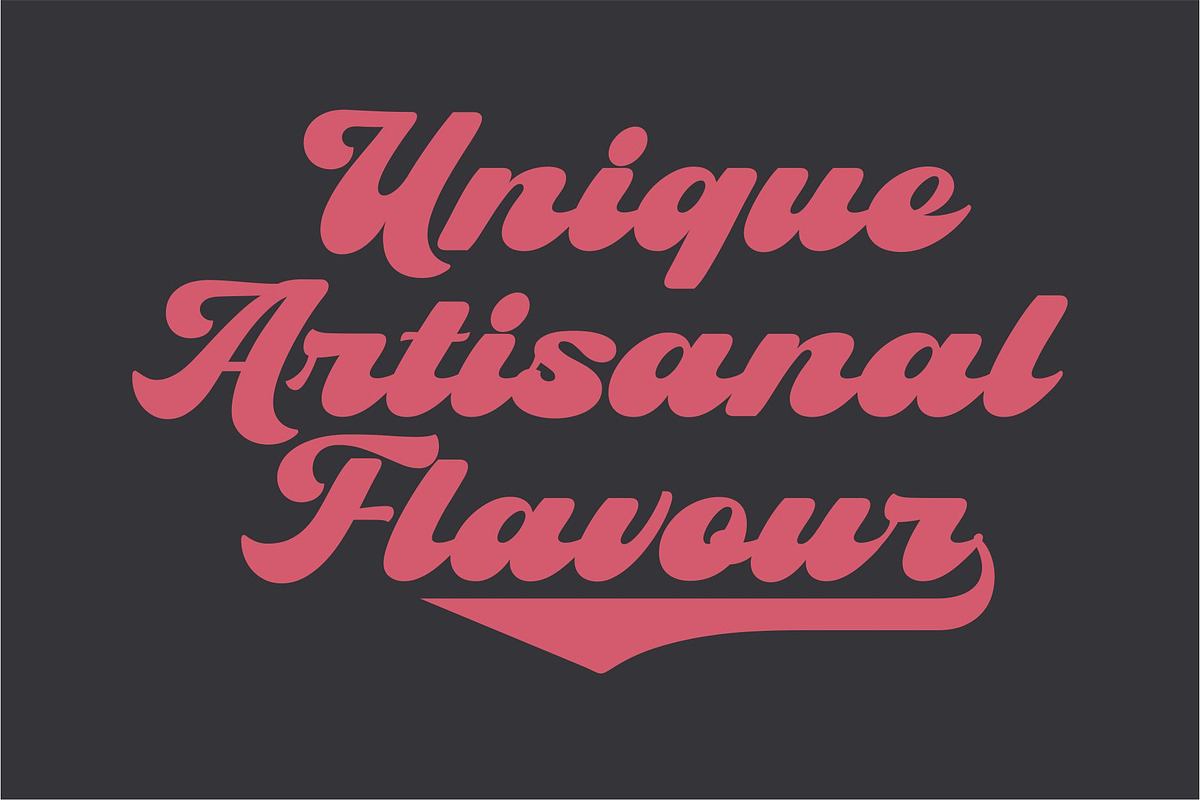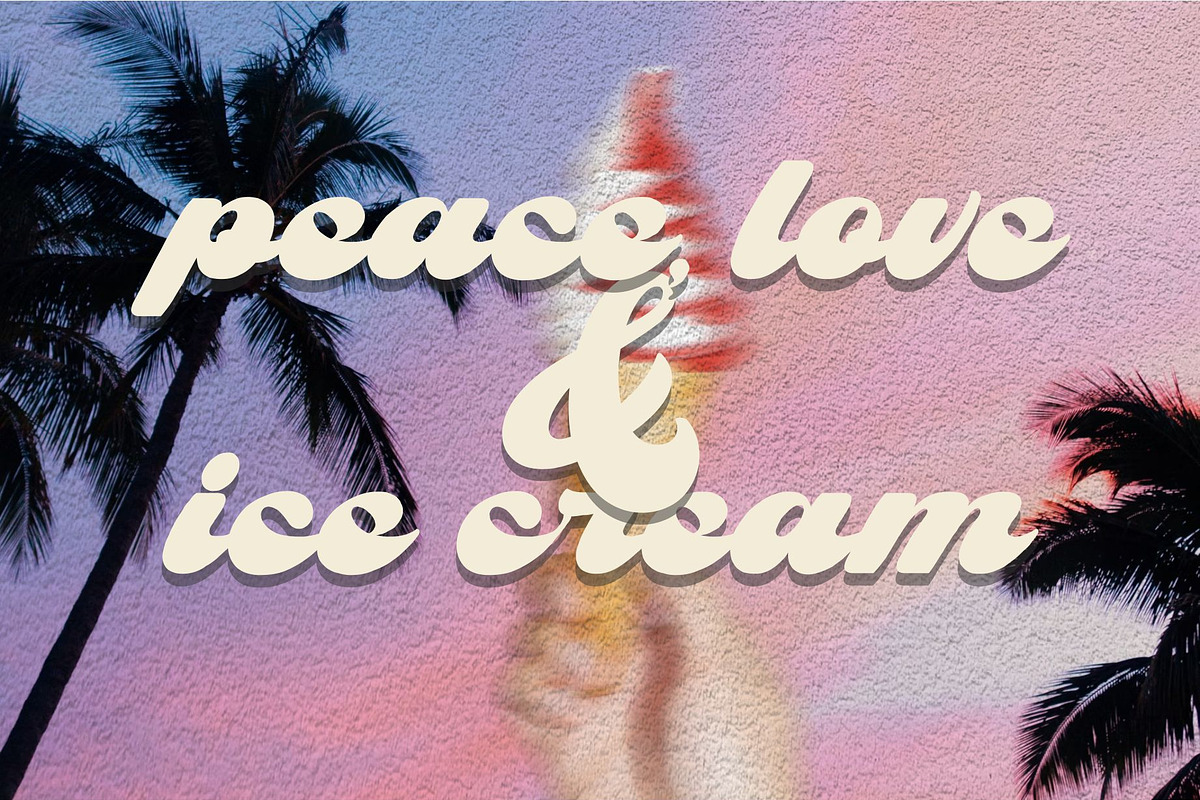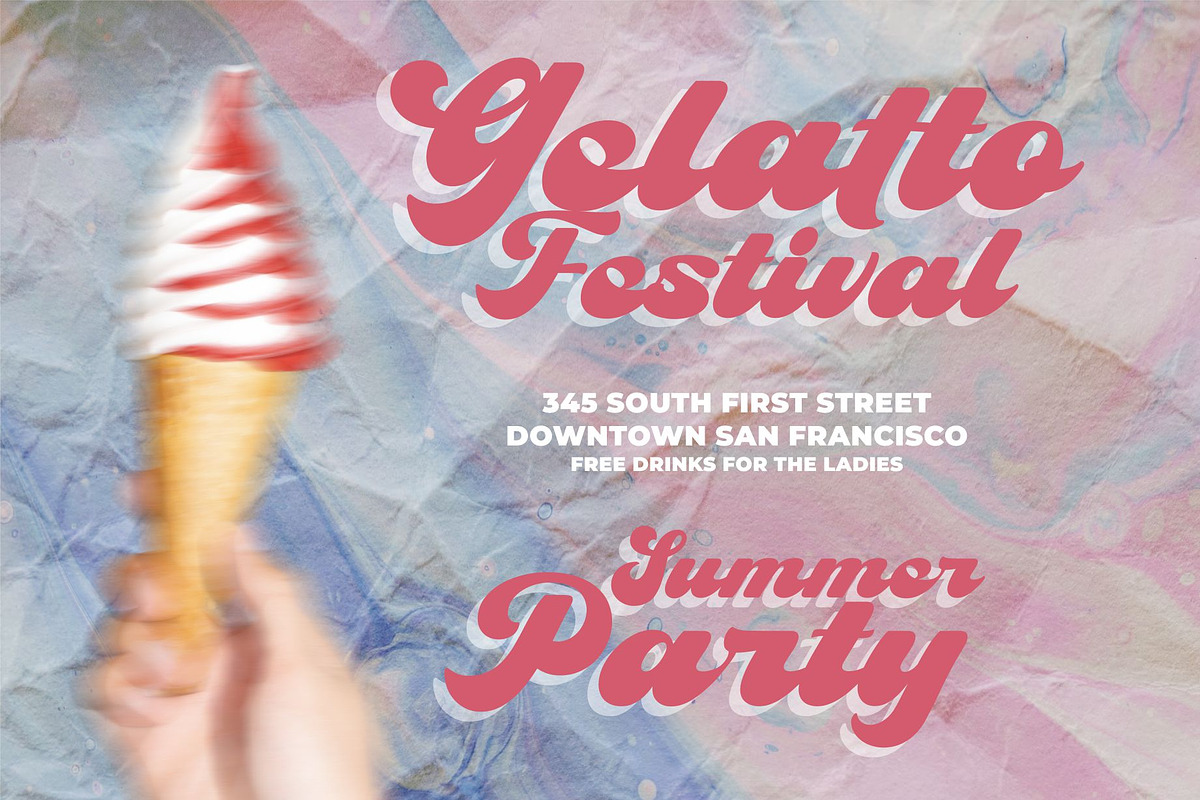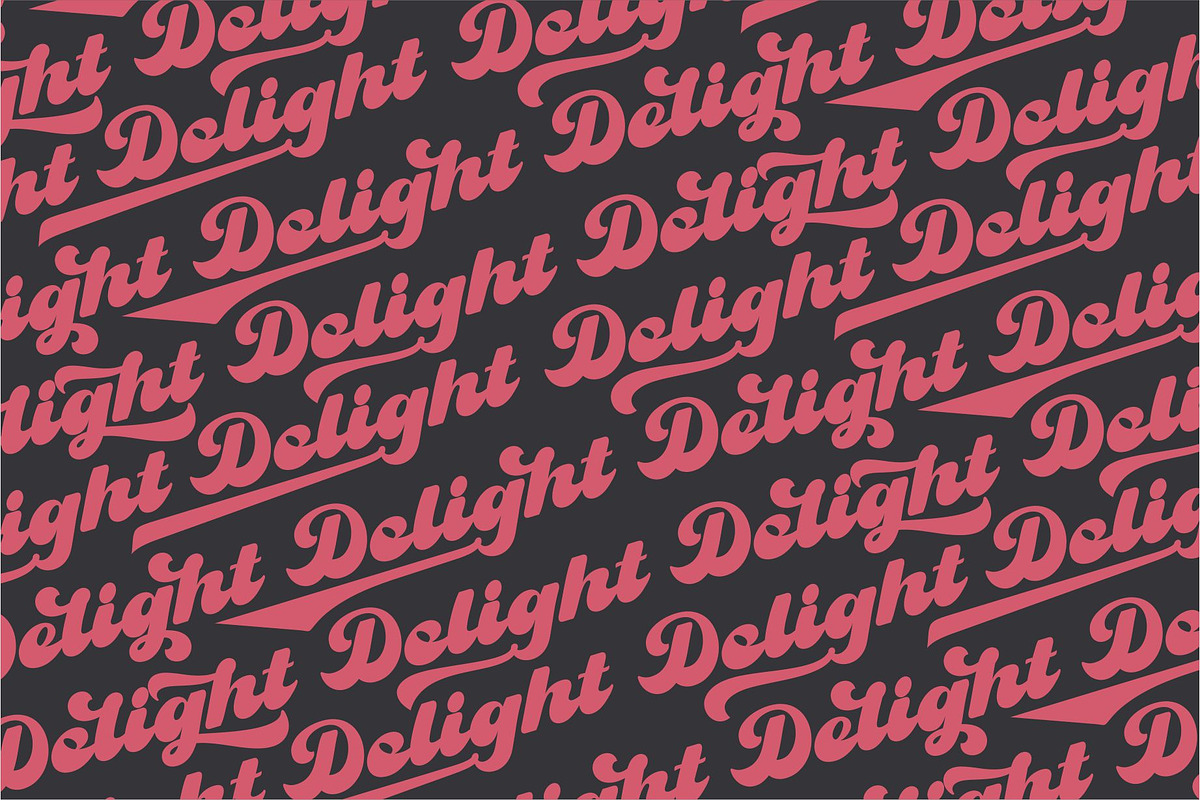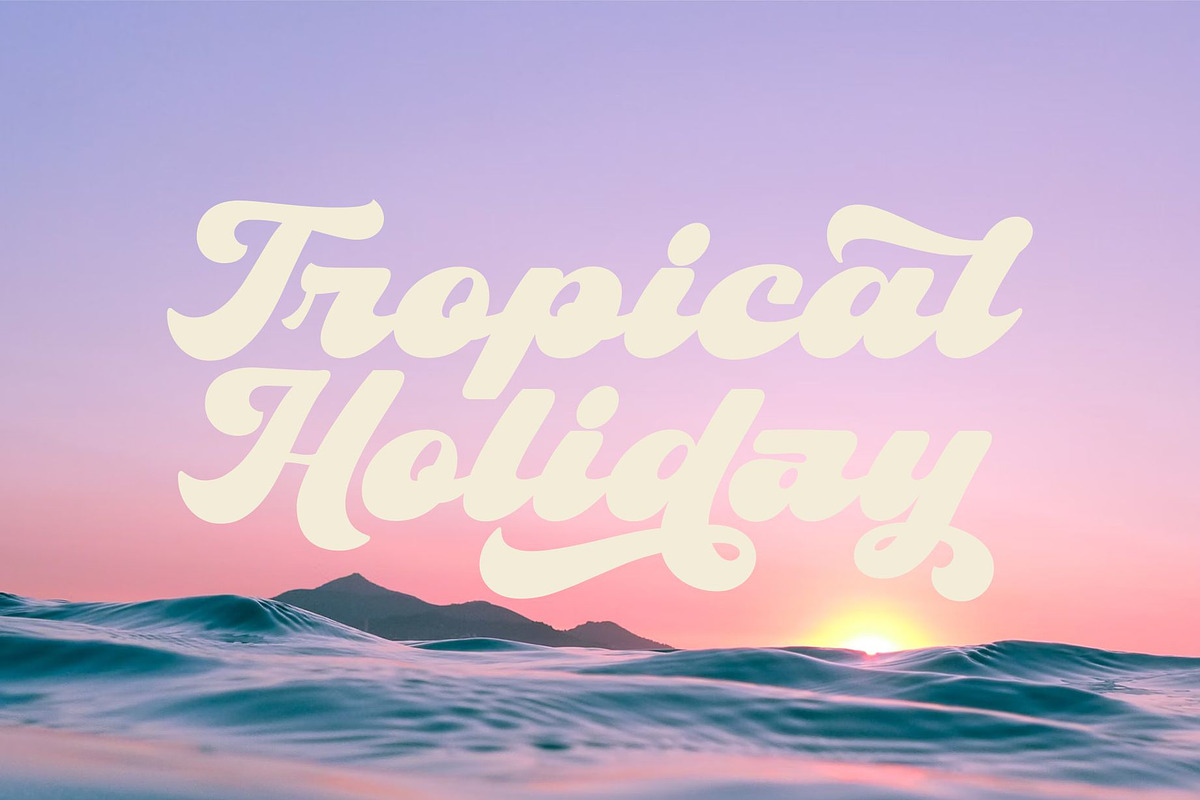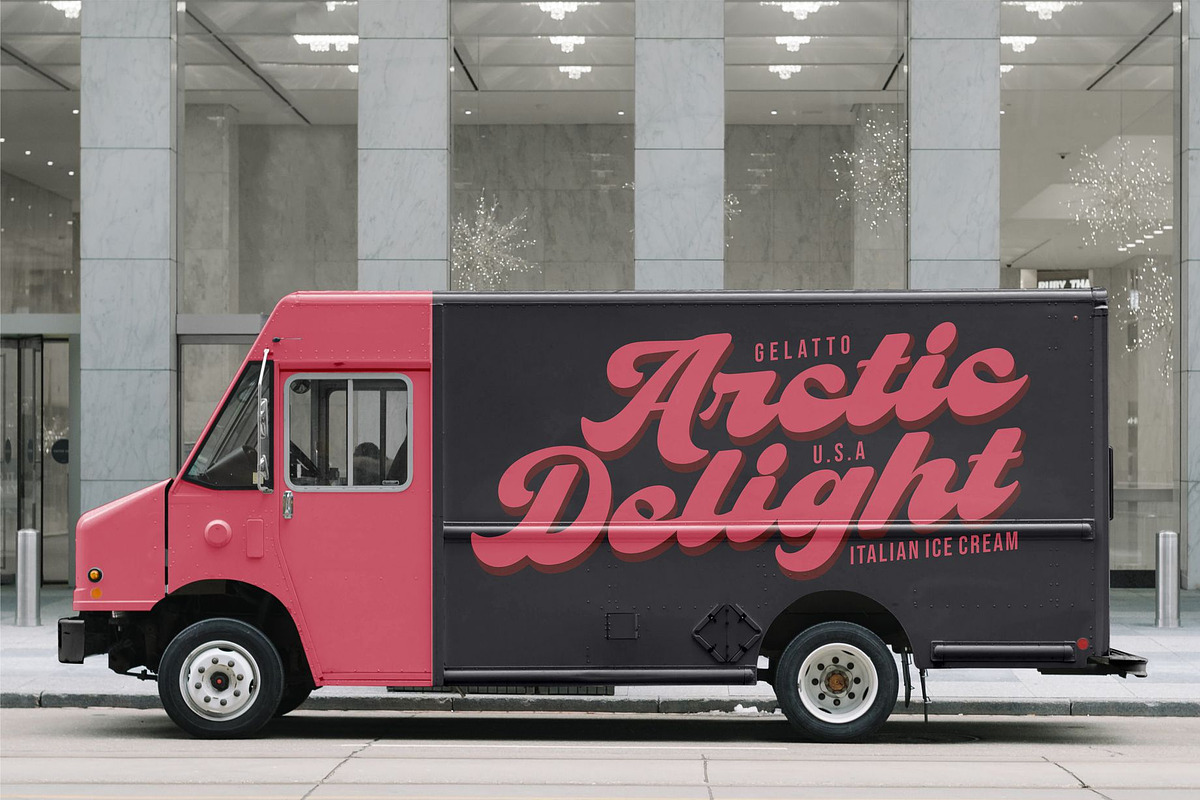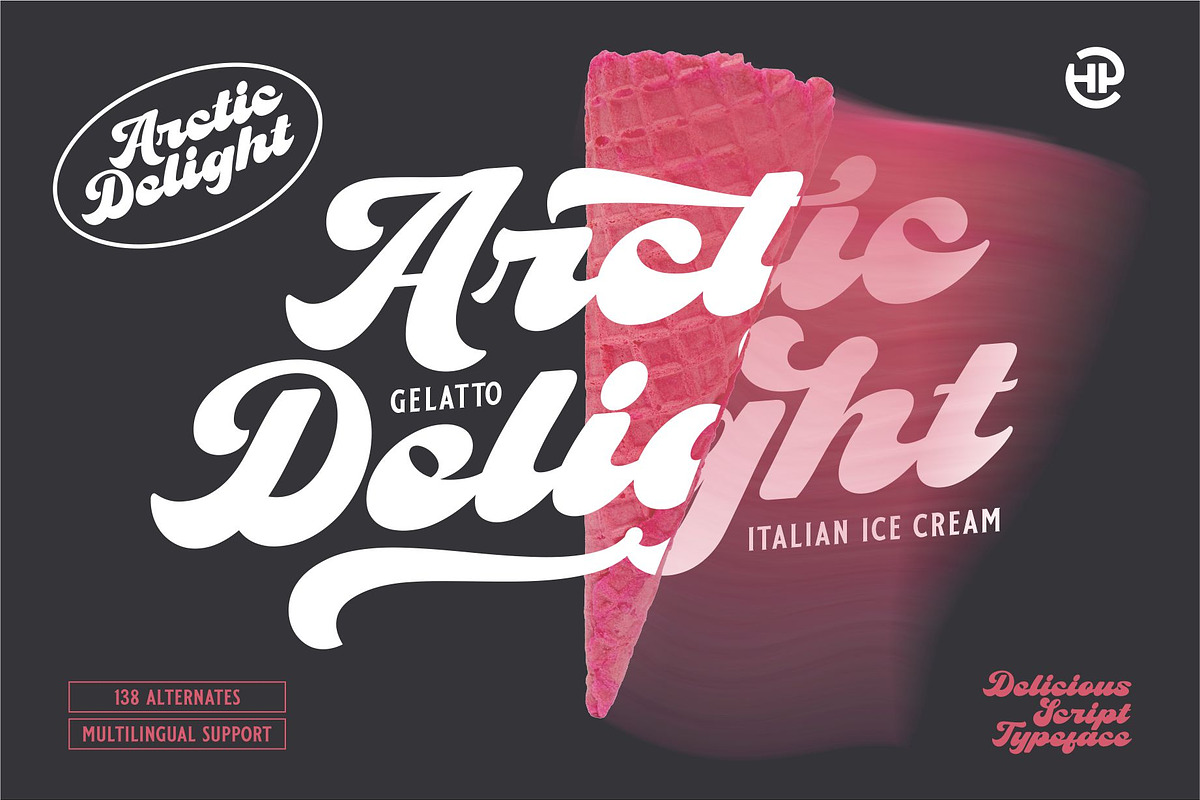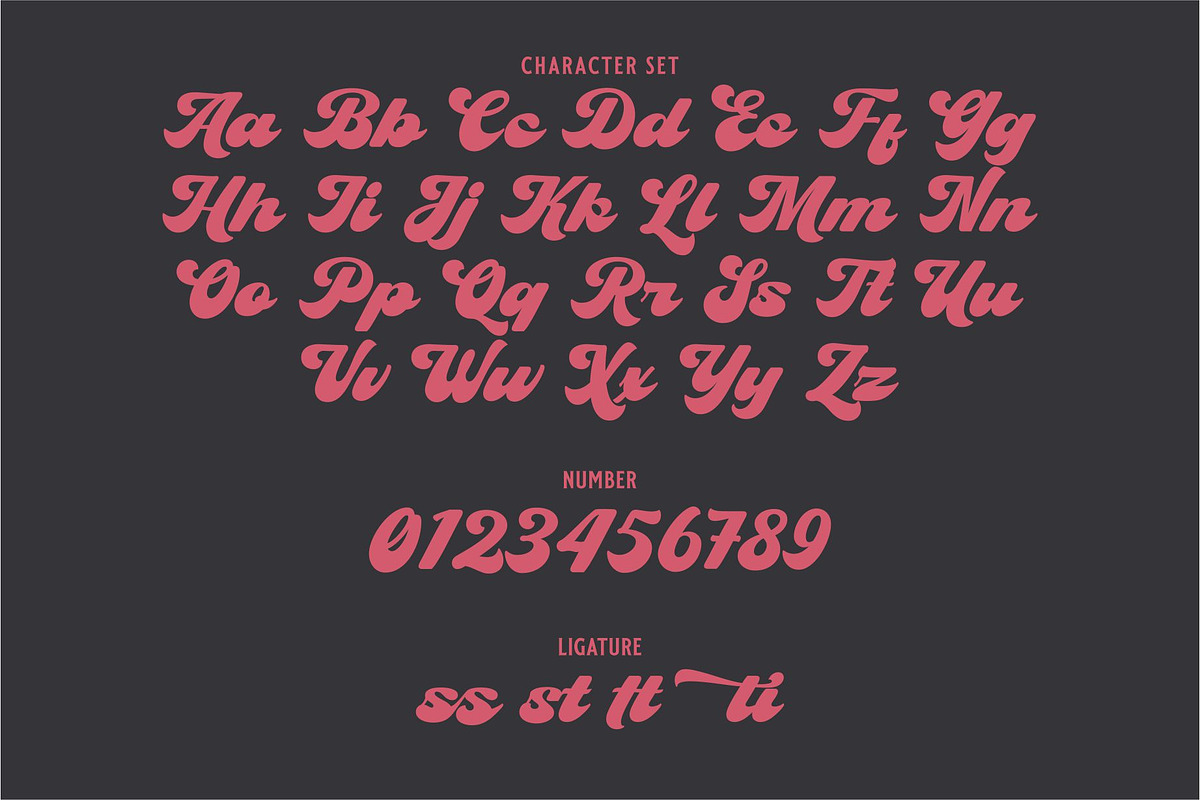
ARCTIC DELIGHT
Arctic Delight is a new carefully crafted Delightful Bold on a delicious script typefaces. Arctic Delight is Versatile, Sweet, Fun, Cute and Beauty feel that you get in Arctic Delight typefaces. Arctic Delight Created with a tons of opentype features. Beautiful swashes, contextual alternates, stylistic sets up to 138 alternates, ligatures, ascender & descender swashes, Uppercase swashes, and swoosh at final of the letters. With a unique appearance this font is suitable for your work such as Logotype, printed quotes, invitations, cards, product packaging, headers, Letterhead, Apparel , Web design, Magazine, Book, etc